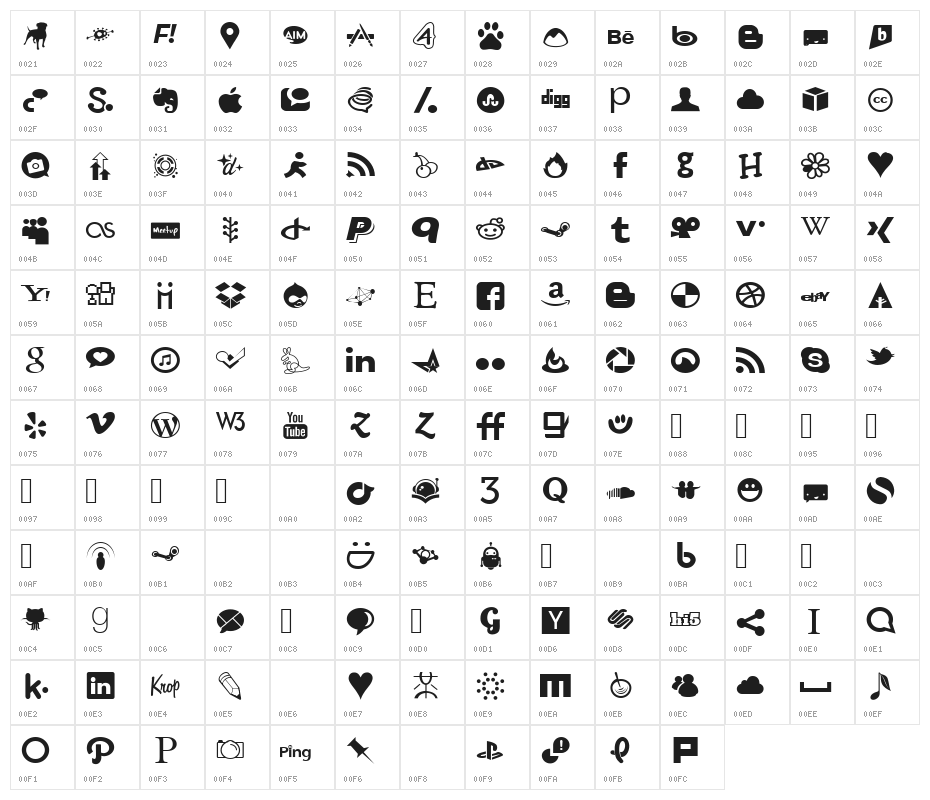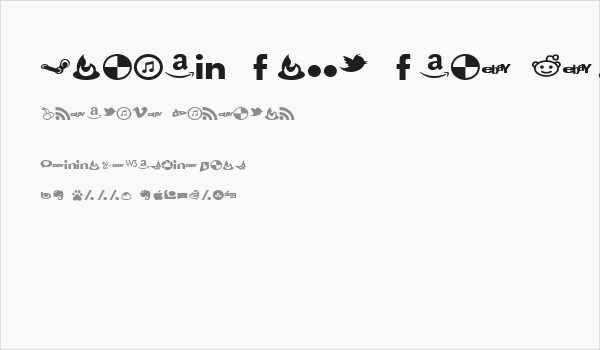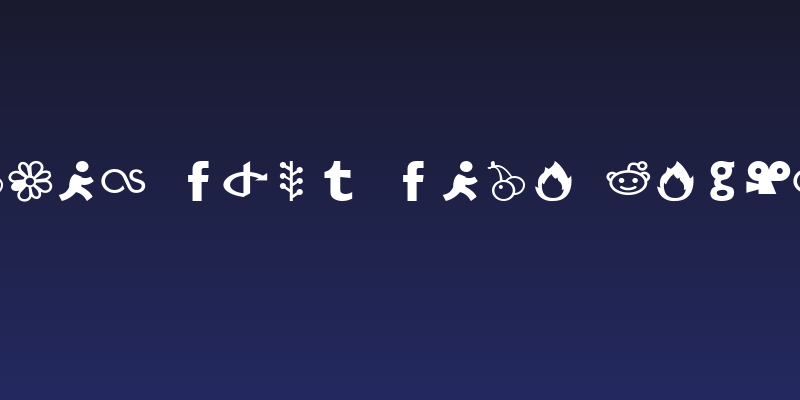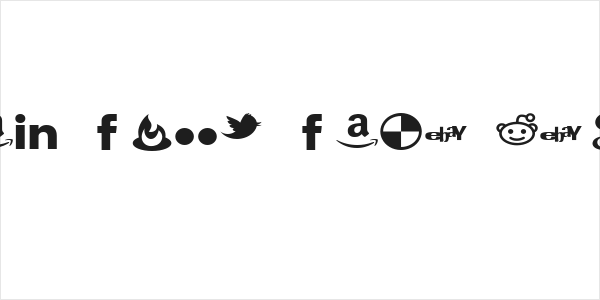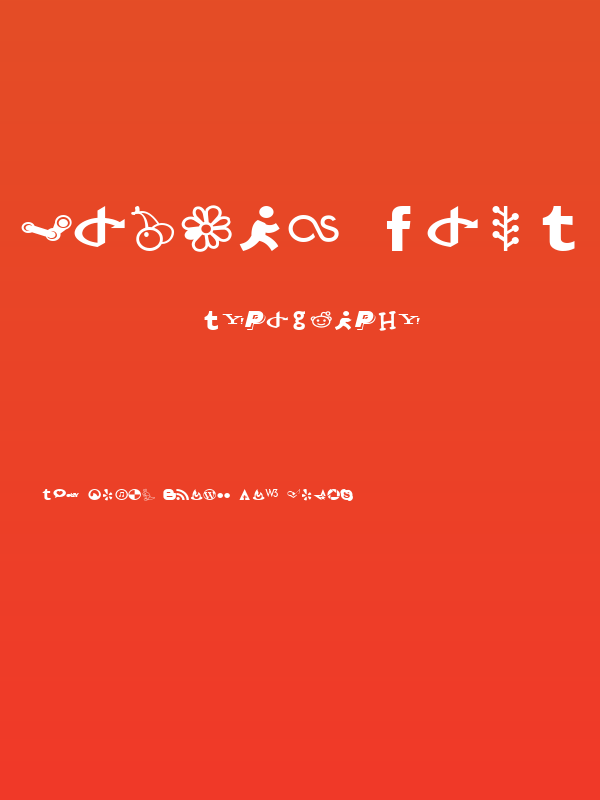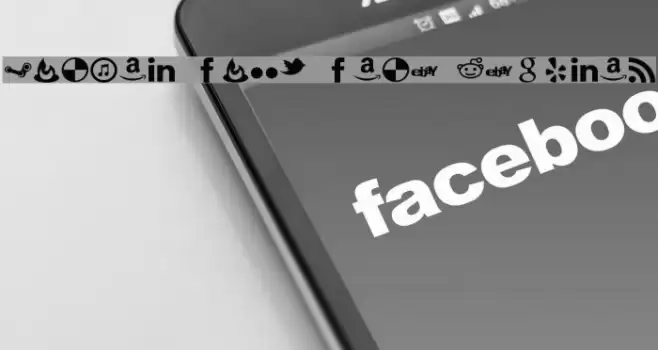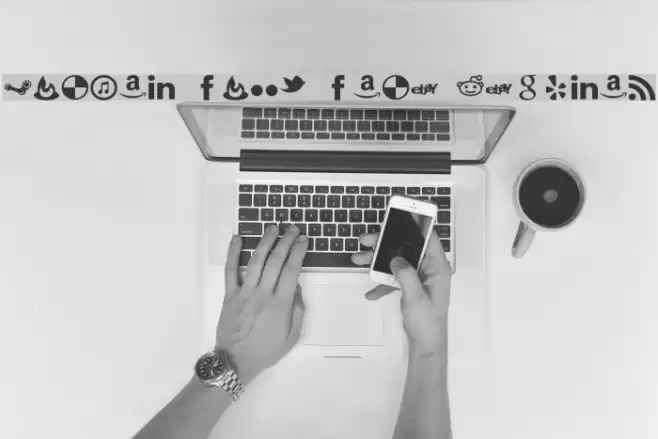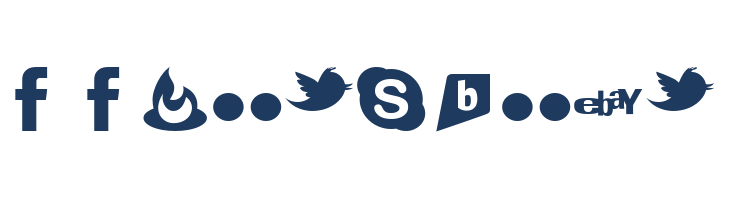
Social Font Face Regular Font
This font is a collection of iconic symbols representing various social media platforms and digital services. Each character is a unique logo or symbol, making it highly recognizable and useful for digital communication. The style is bold and clear, ensuring that each icon is easily identifiable. The font is designed to be used in digital contexts where brand representation is key. It includes a wide range of symbols from popular social media platforms, tech companies, and other digital services, making it versatile for any project that requires brand icons.
| Use Case | Logos, Digital graphics, Branding |
| Proposed Projects | Ideal for digital designs, social media graphics, tech presentations, and branding materials. |